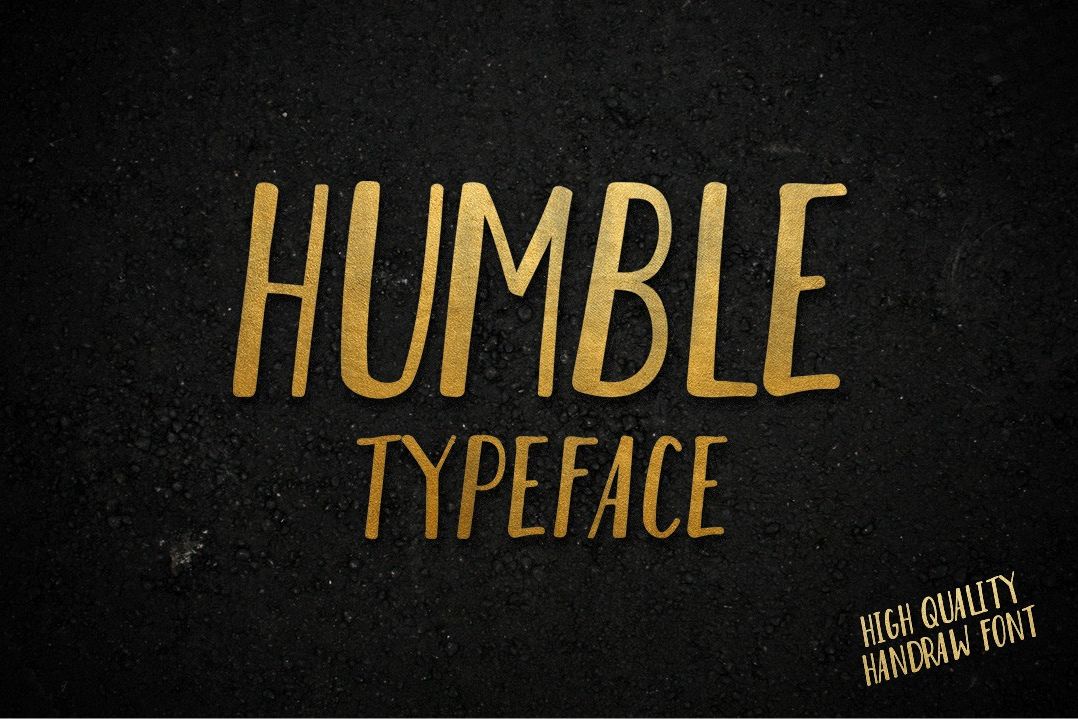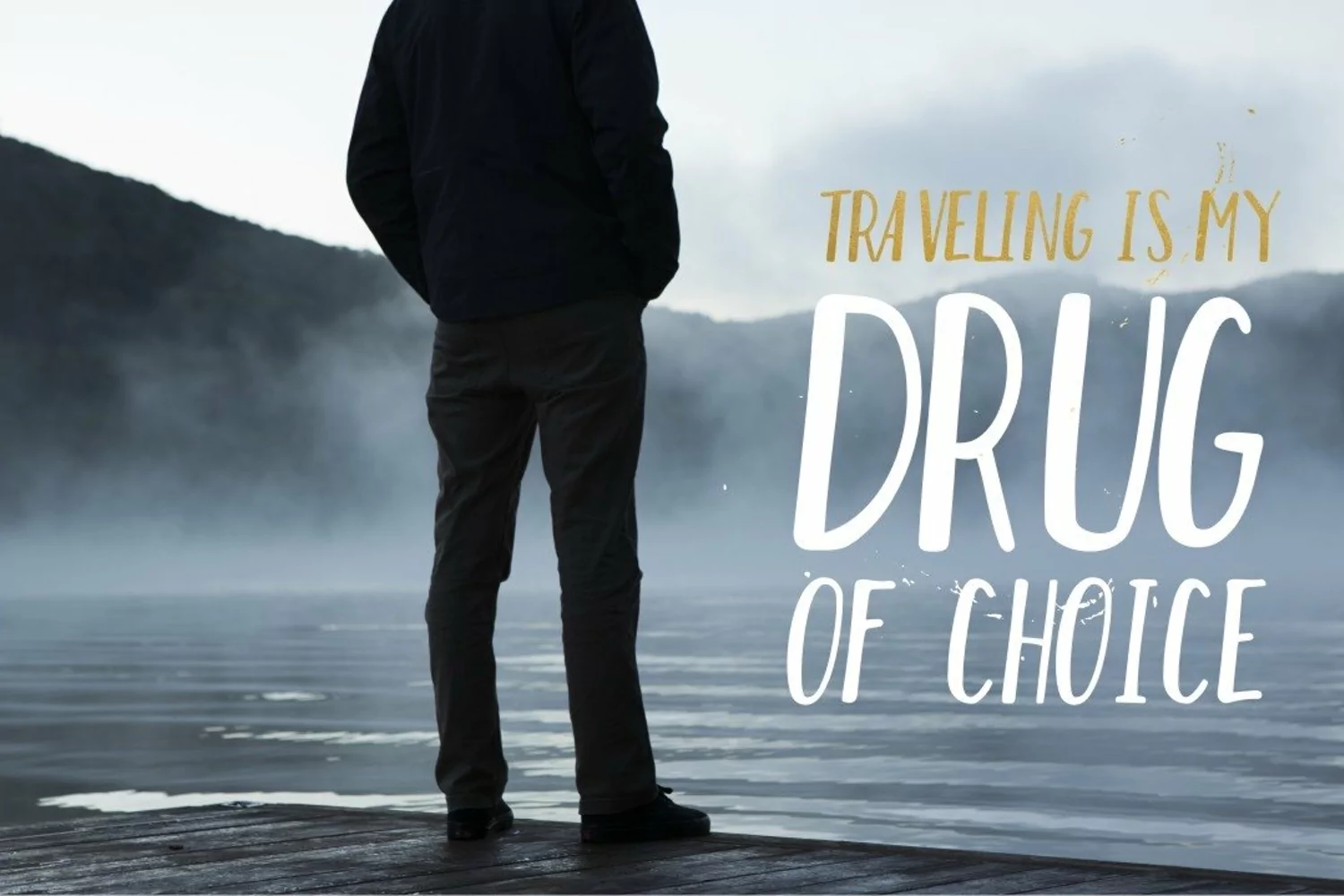
Humble is a clean and neat typeface for both everyday use and special occasion greeting card, wedding invitation, letter, sticker and so much more design project.